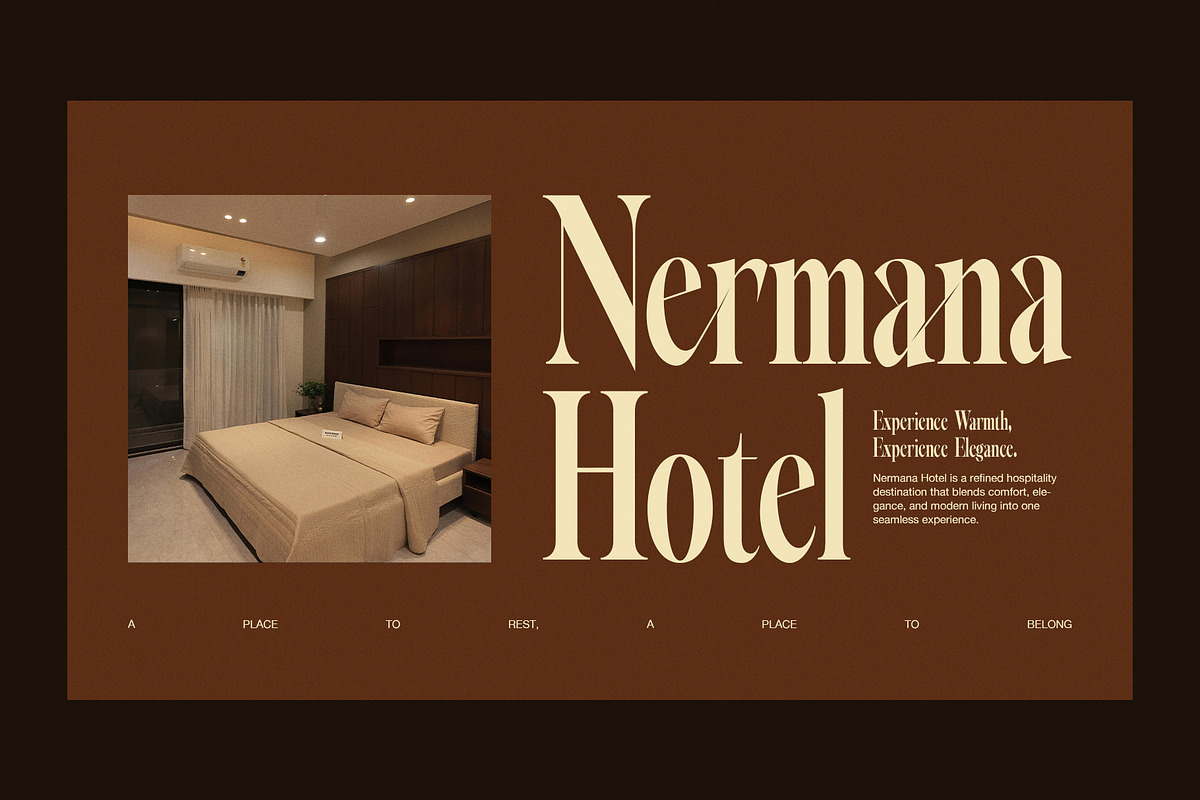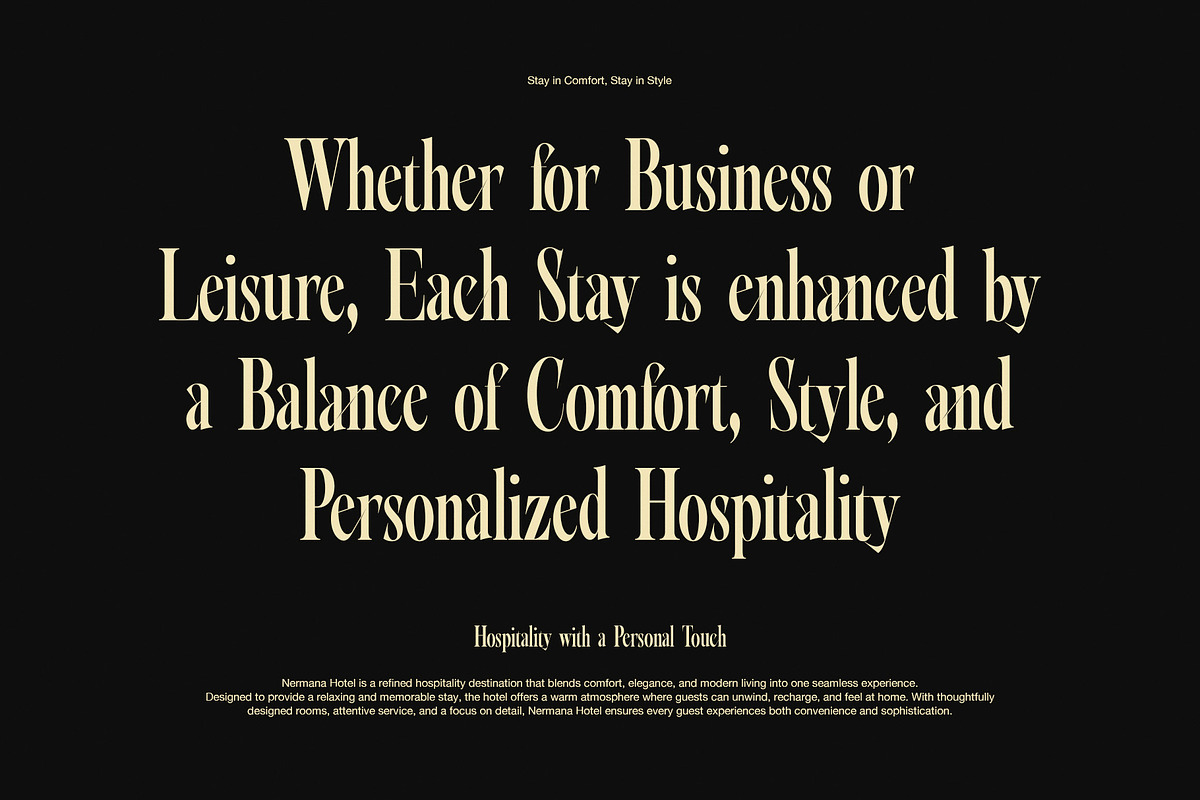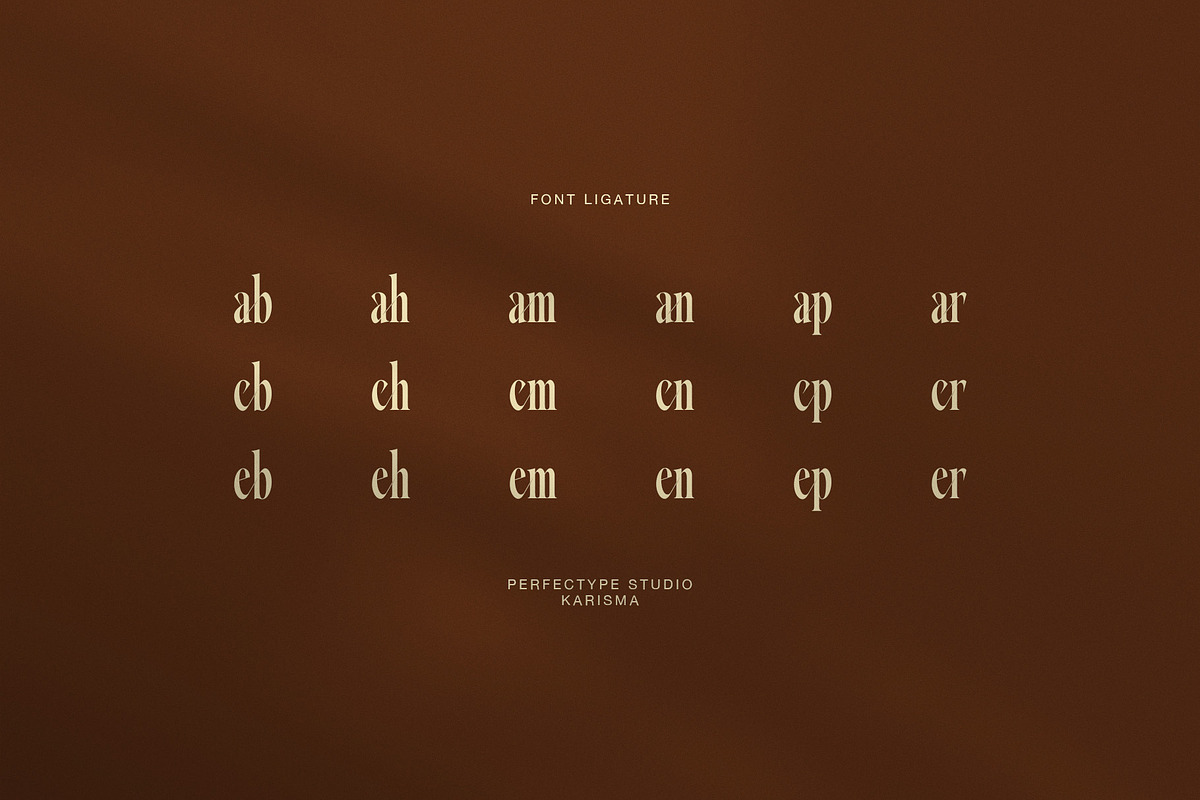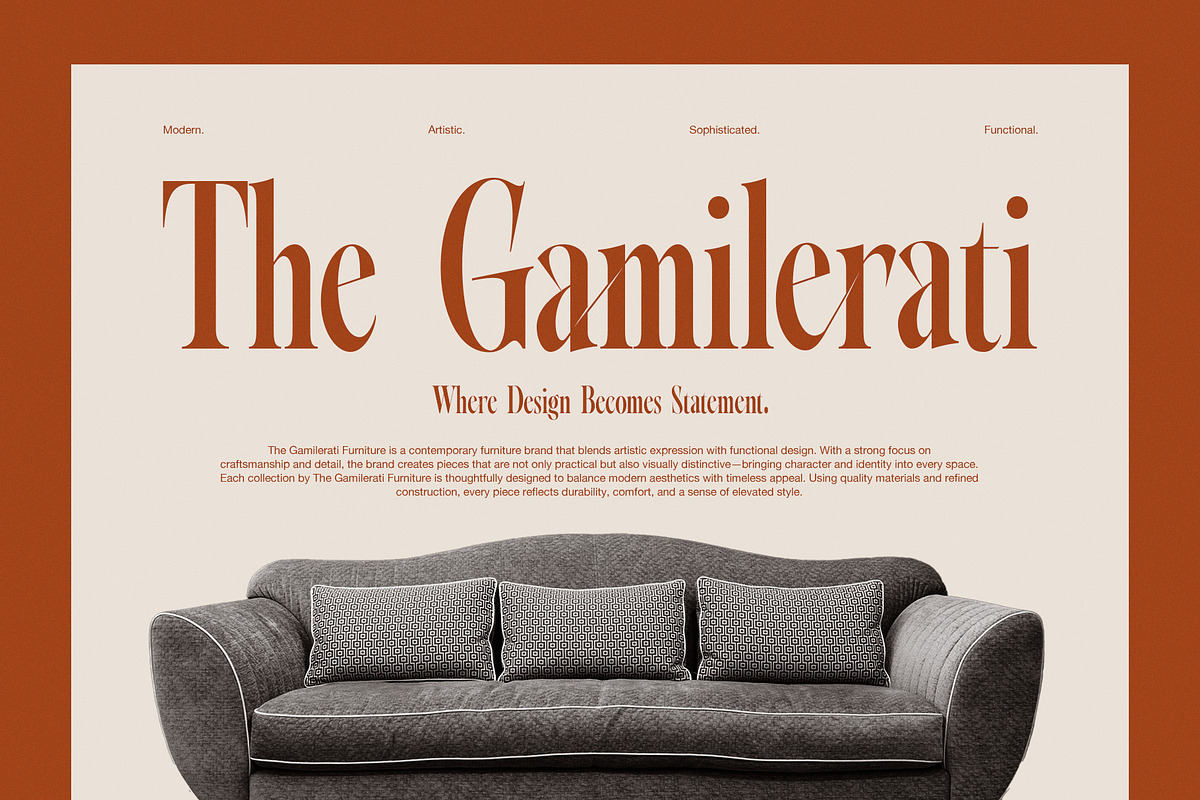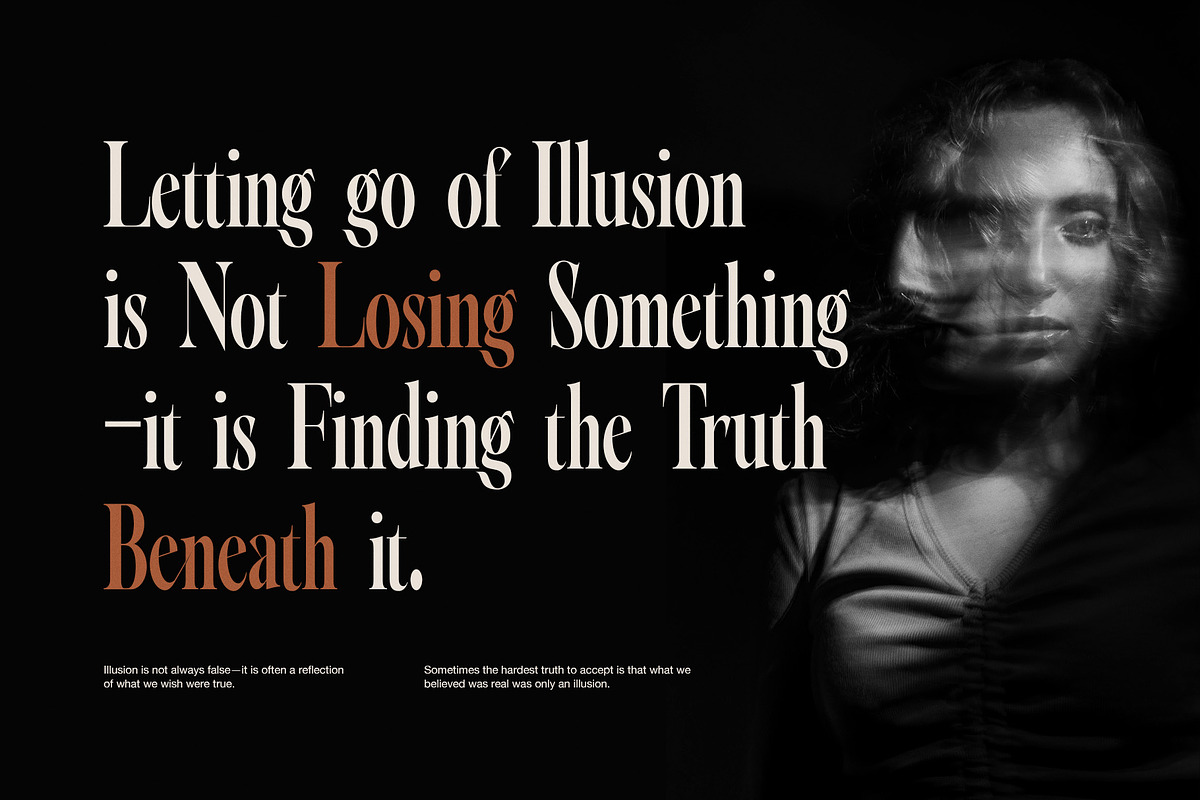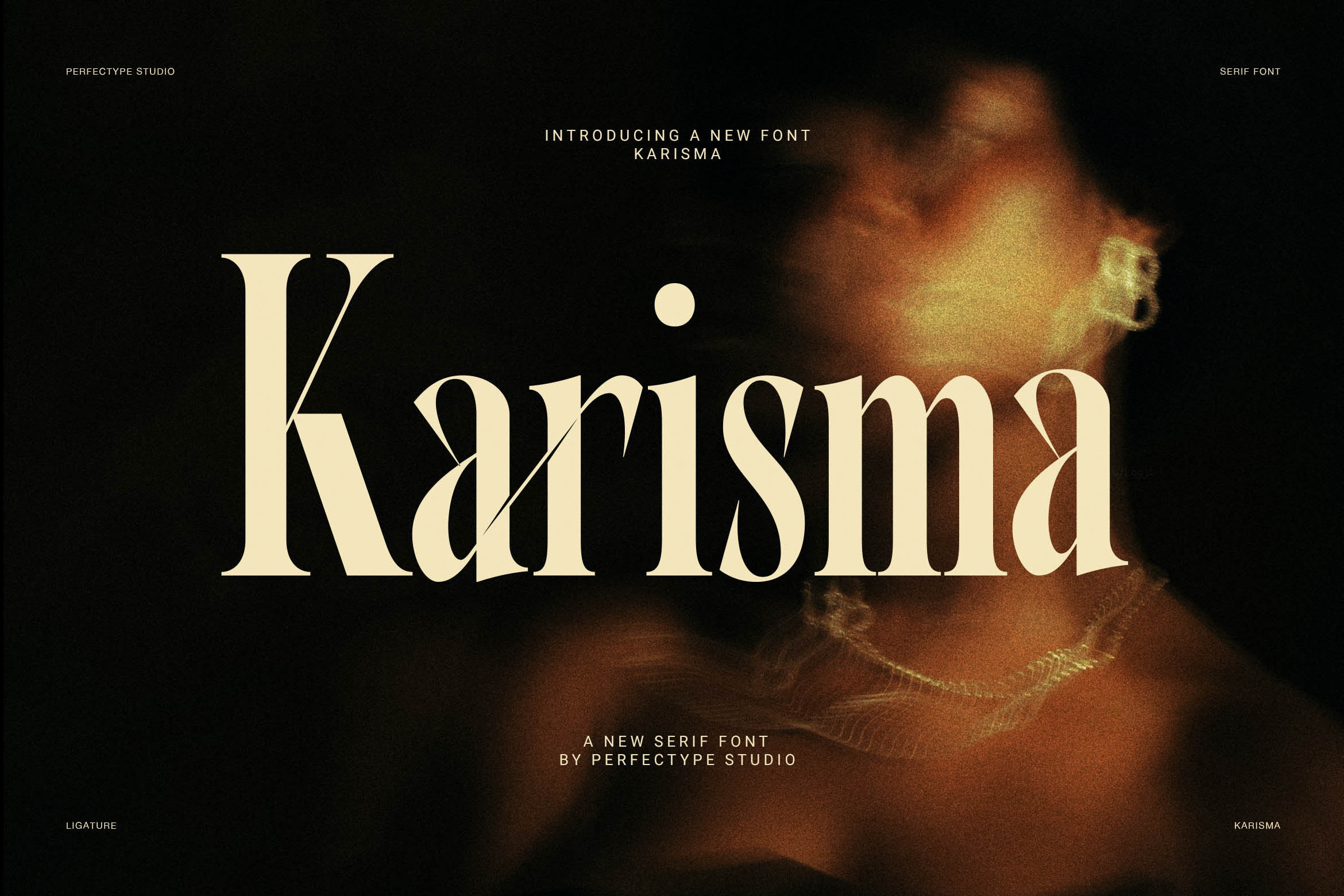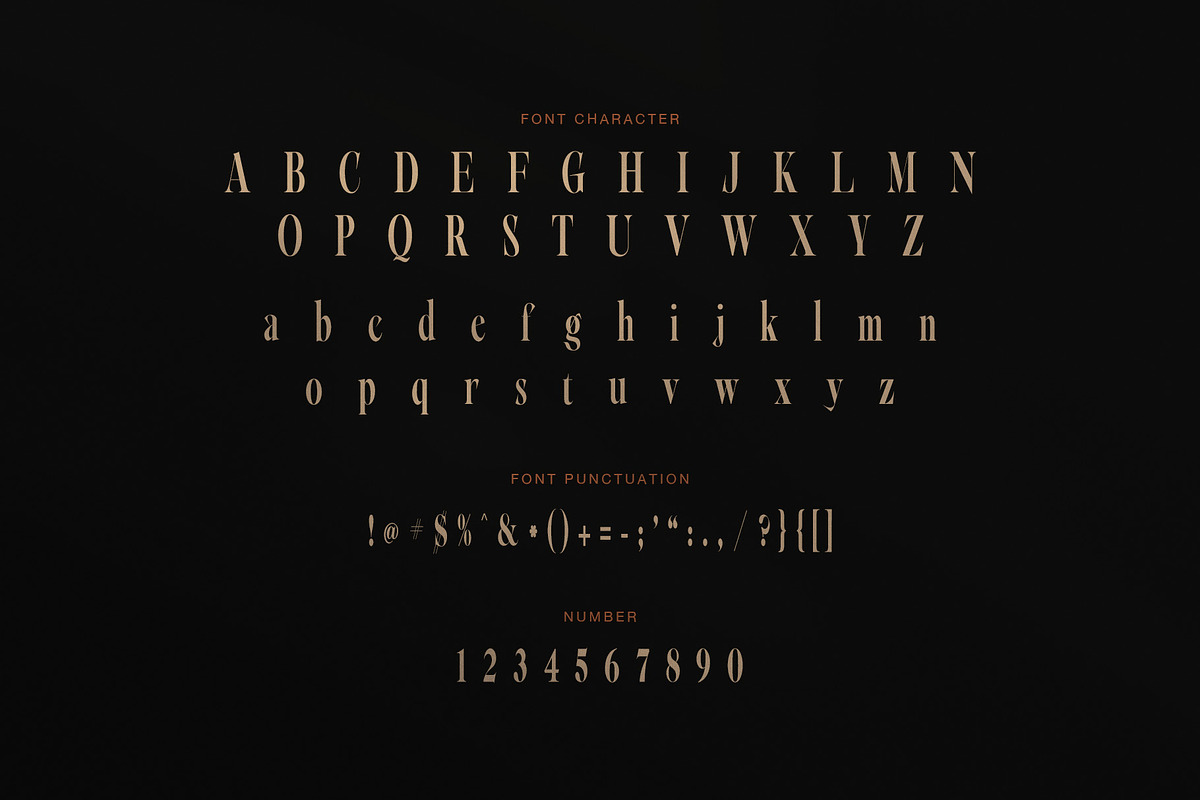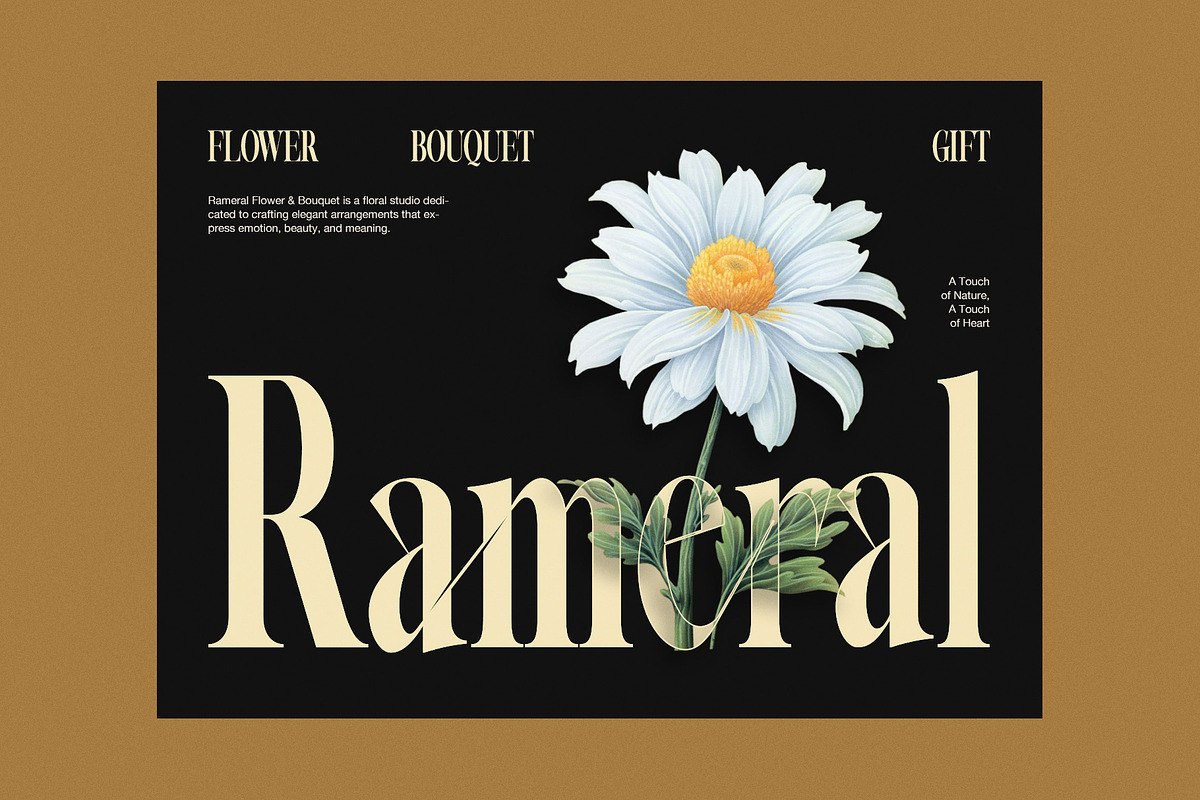
Karisma Elegant Serif Font
Karisma Elegant Serif Font is a refined display serif with a bold soul and a graceful finish. It blends classic serif structure with dramatic contrast, stylish ligatures, and a clear editorial mood. As a result, it feels elegant, artistic, and highly memorable. This font is made for designers who want strong typography that still looks polished and luxurious.
The shape of Karisma has a sharp and expressive rhythm. Its tall forms, narrow proportions, and high contrast strokes create a striking visual presence. Moreover, several letters show sculpted curves and smooth cuts that give the type a more custom feel. The serifs look crisp, while the overall structure stays balanced. Because of that, Karisma works well in both modern and timeless layouts.
One of its strongest traits is the ligature system. The ligatures help words flow with more character, so headlines and logos feel less standard and more distinctive. In addition, the letter spacing looks elegant in large sizes, which makes the font ideal for display use. It performs beautifully in fashion branding, hotel identity, floral design, quote layouts, furniture campaigns, and premium editorial work.
Karisma also has a strong emotional tone. In some layouts, it feels dramatic and poetic. In others, it feels warm, stylish, and upscale. Therefore, it is flexible enough for many visual directions. While many serif fonts look too formal or too plain, Karisma feels more expressive and more alive. That balance makes it very useful for designers who need beauty and impact at the same time.
Best uses for Karisma
luxury branding
logo design
editorial headlines
fashion campaigns
hotel branding
floral packaging
furniture branding
quote posters
social media graphics
product presentation
Why designers will love it
Karisma Elegant Serif Font gives words a strong and elegant voice. Moreover, its ligatures add a crafted look without making text hard to read. Because the shapes are stylish yet controlled, the font feels premium and professional. It helps short text stand out, and it makes brand names look more refined.
If you need an elegant serif font with ligatures, high contrast, and standout display appeal, Karisma is a strong choice. It brings confidence, beauty, and editorial charm to every layout.